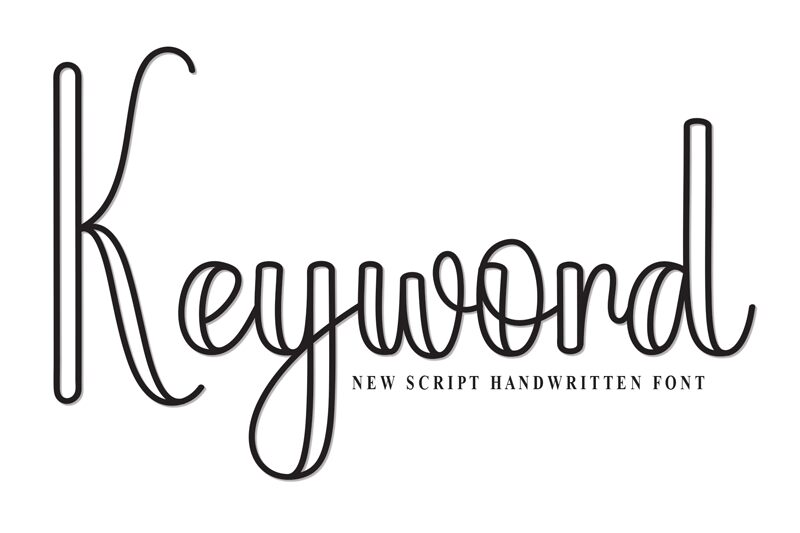
Keyword
Keyword font, designed by Scratchones, exudes a charming handwritten style with its elegant outline. The condensed form of the characters gives it a modern twist while maintaining an inviting and personal touch. Each letter flows seamlessly into the next, creating a sense of continuity that draws the reader in.
Visually striking yet playful, Keyword’s aesthetic is perfect for creative projects seeking a unique flair. It shines in branding materials, social media graphics, and artisanal packaging where an informal yet sophisticated look is essential. This font invites warmth and individuality into every design context while remaining bold enough to make statements that resonate with audiences. Embrace Keyword for an expressive and stylish addition to your typographic toolkit.